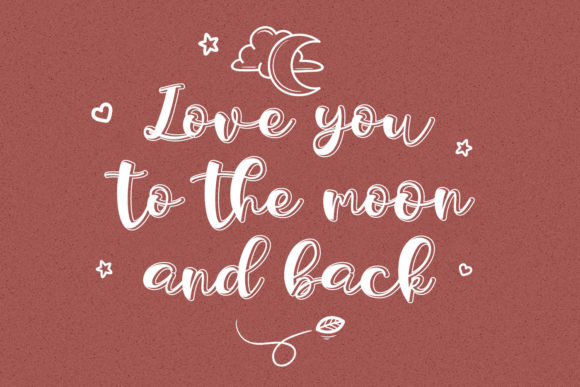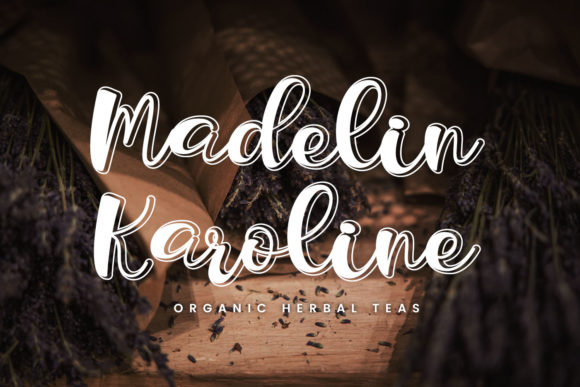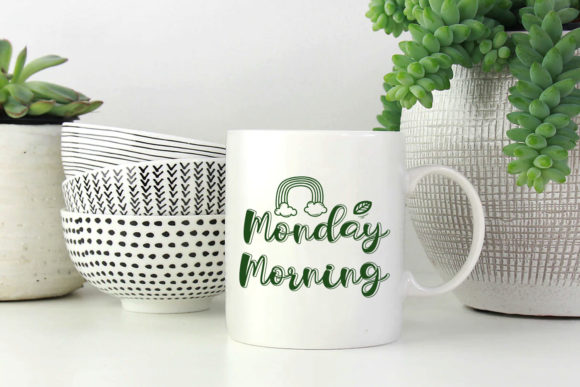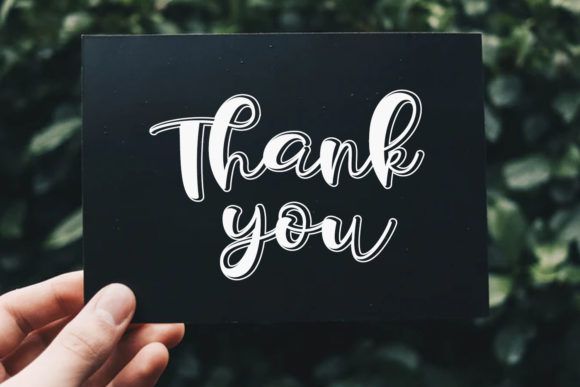
Liorentin Outline Font
Liorentin Outline is a sweet and stunning script that will add a personal feel to your next design idea. Fall in love with its playful look & feel.